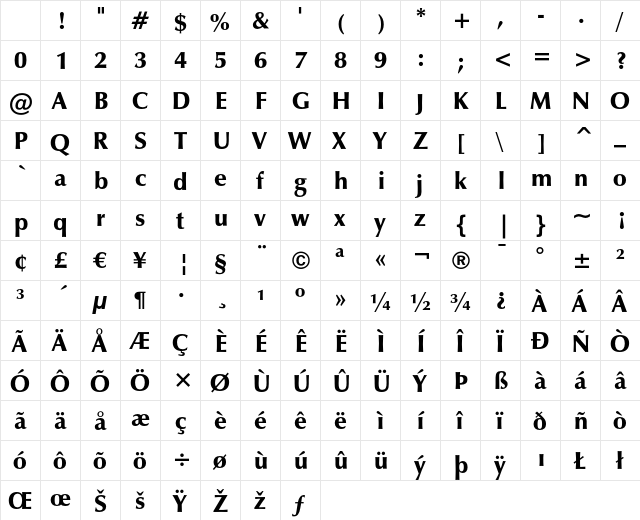
Zapf Humanist 601 Ultra
Design Context for Zapf Humanist 601
Zapf Humanist 601 is a composed and adaptable typeface that performs quietly and consistently across a wide range of design contexts.